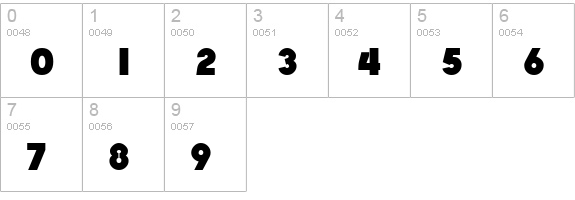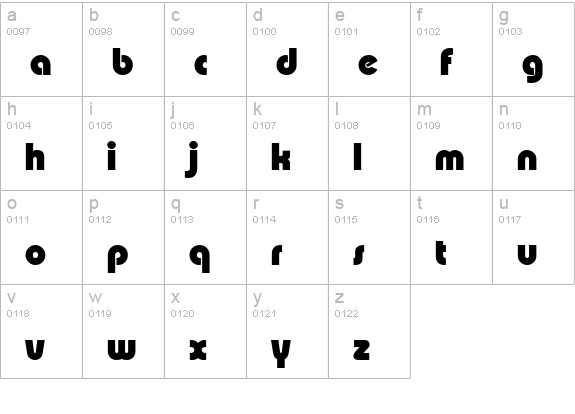
XpressiveBlack Regular Font Details
XpressiveBlack Regular is the standard, neutral variant in the XpressiveBlack typeface family \xE2\x80\x94 well suited to general body text, paragraphs, and standard typographic work.
XpressiveBlack Regular font is a bold and dynamic typeface that exudes modernity and sophistication. Its sleek lines and striking curves make it perfect for adding a touch of elegance to any design project. The font is versatile and can be used for a variety of purposes, from branding to editorial design. What sets XpressiveBlack Regular font apart is its ability to make a statement while remaining highly readable. Whether used for headlines, titles, or body text, this font commands attention and leaves a lasting impression. The best part is that XpressiveBlack Regular font is completely free to download at FontsMarket.com. With just a few clicks, you can add this stylish font to your collection and start using it in your projects right away. Don't miss out on this opportunity to enhance your designs with the bold and expressive XpressiveBlack Regular font.